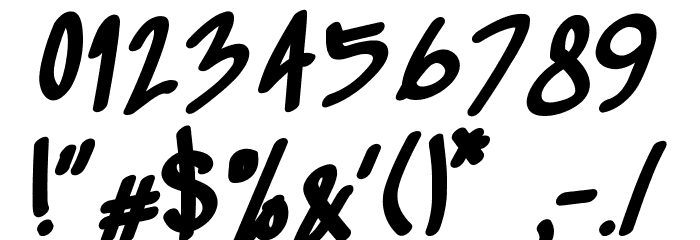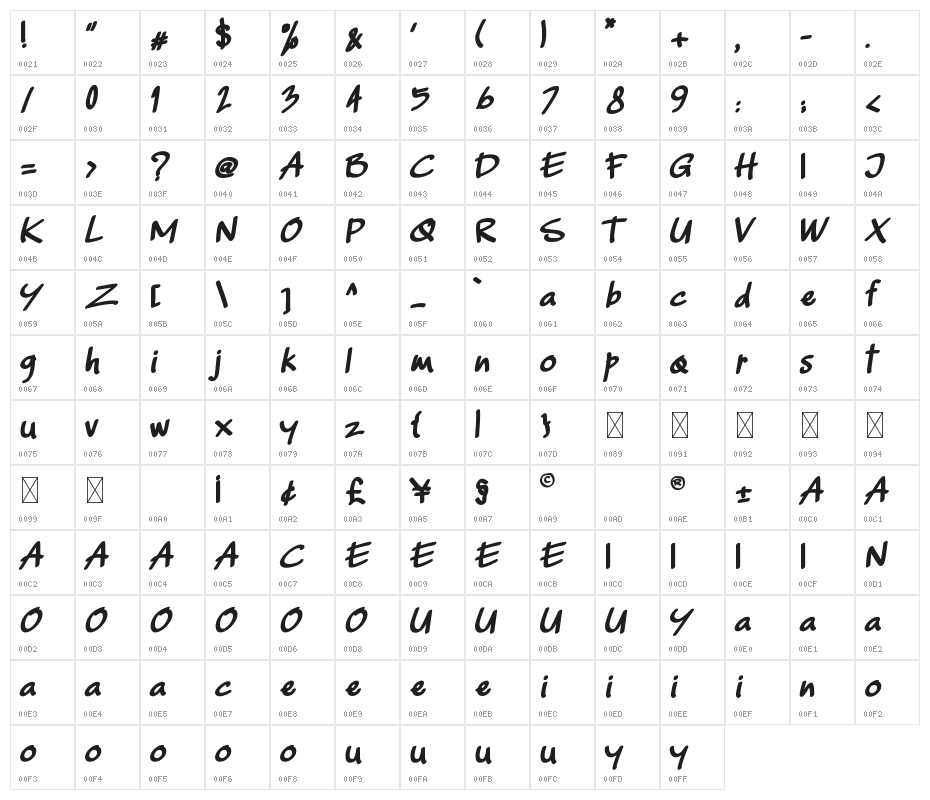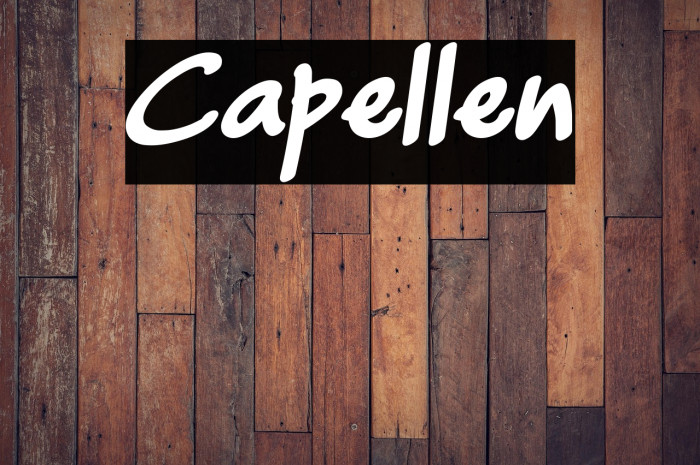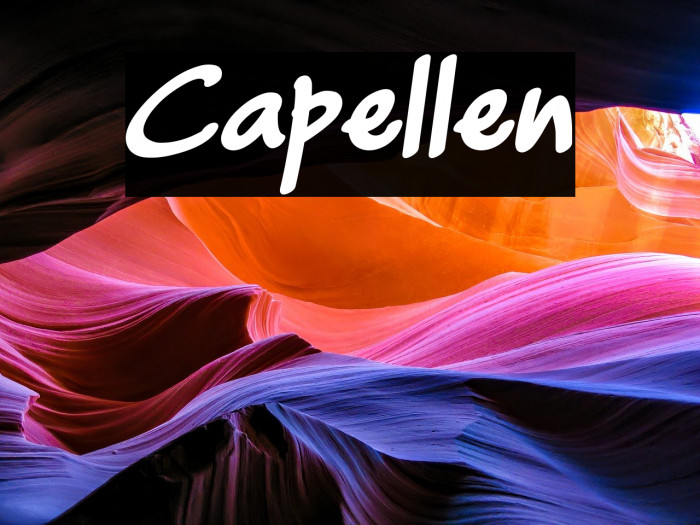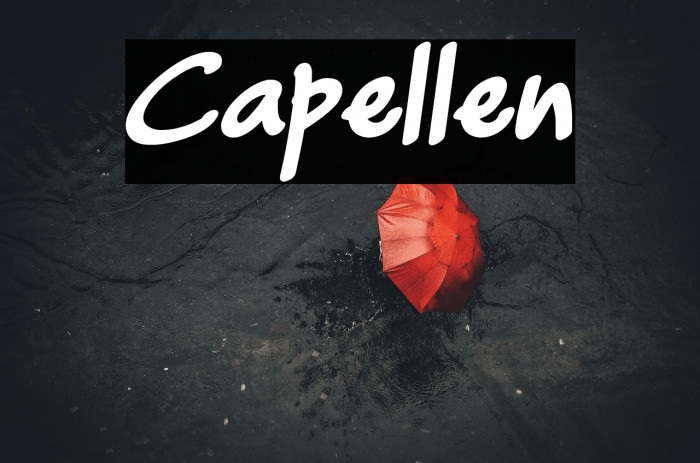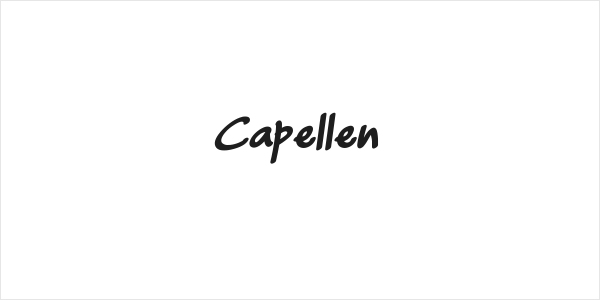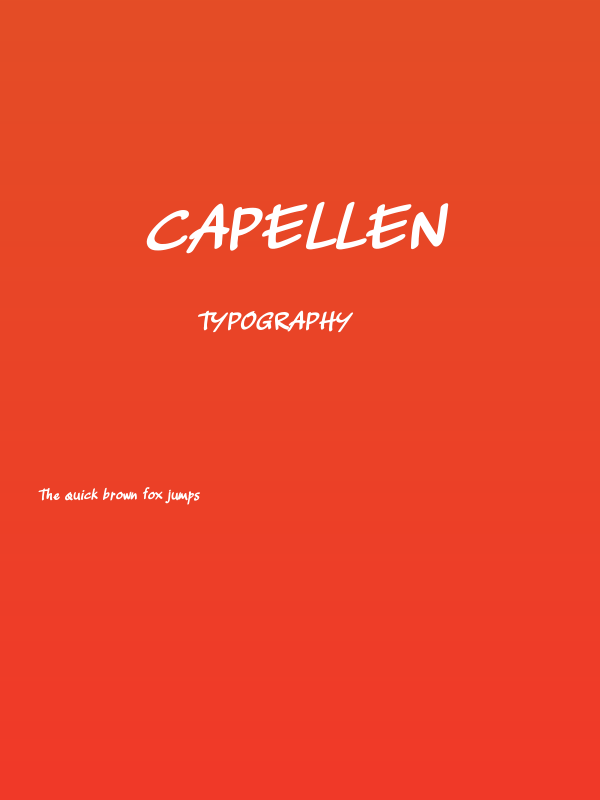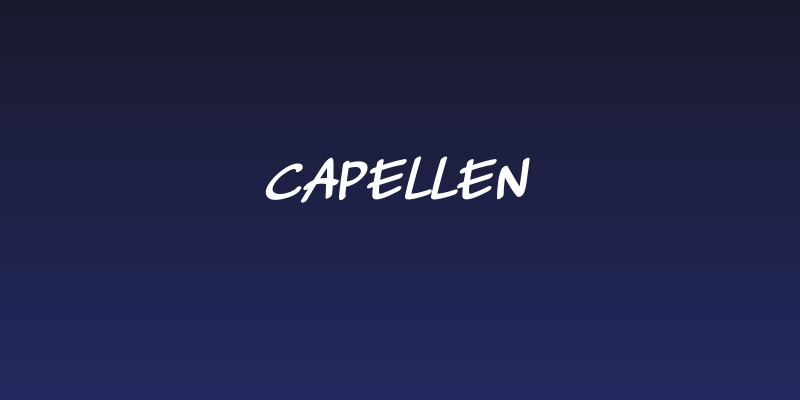
Capellen Font
Capellen Description
This font features a dynamic and energetic handwritten style, characterized by its fluid and slightly slanted letterforms. The strokes are bold and expressive, giving it a lively and informal appearance. The uppercase and lowercase letters maintain a consistent flow, with rounded edges and a playful touch. Numbers and special characters are equally bold, ensuring readability and maintaining the font's cohesive look. The overall design is casual yet impactful, making it suitable for projects that require a personal and approachable feel.
| Proposed Projects | Ideal for greeting cards, invitations, posters, and branding materials that aim to convey a personal and friendly tone. |